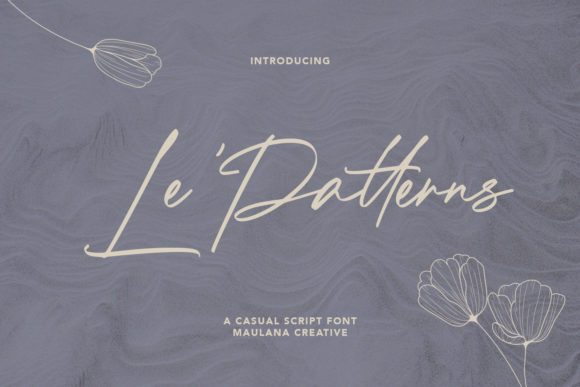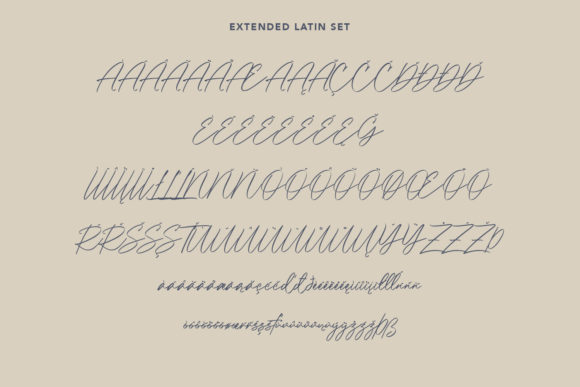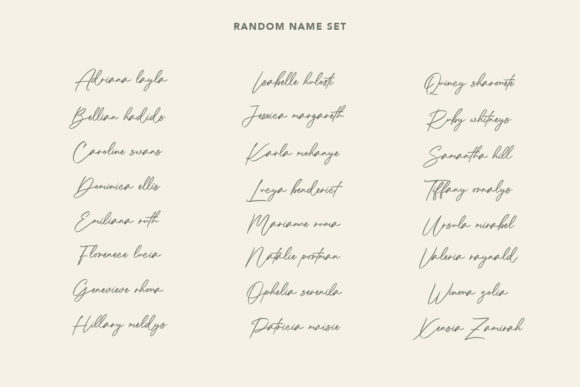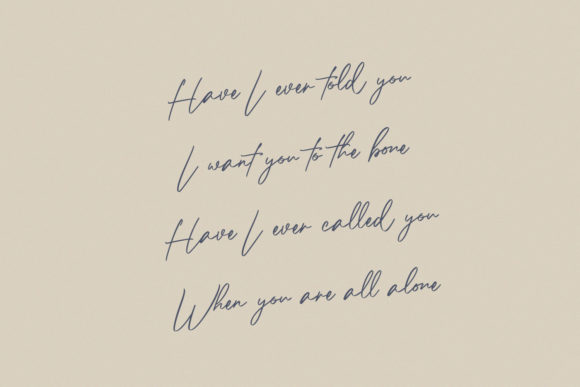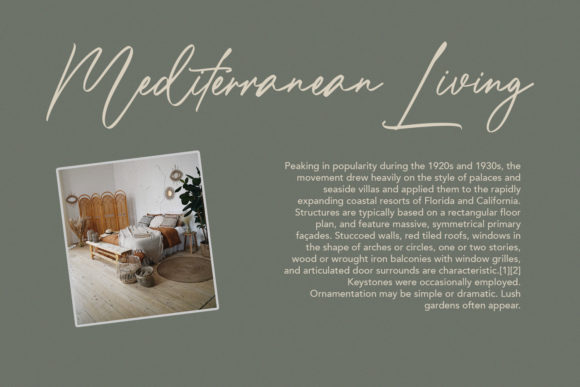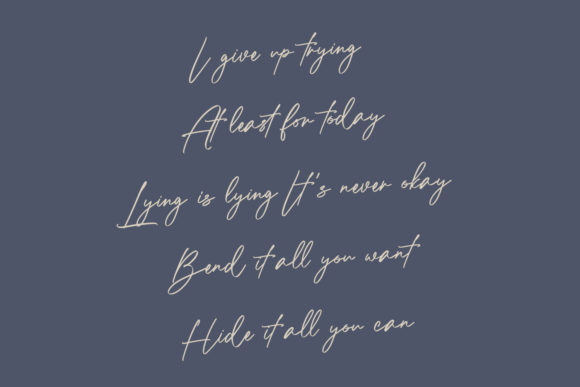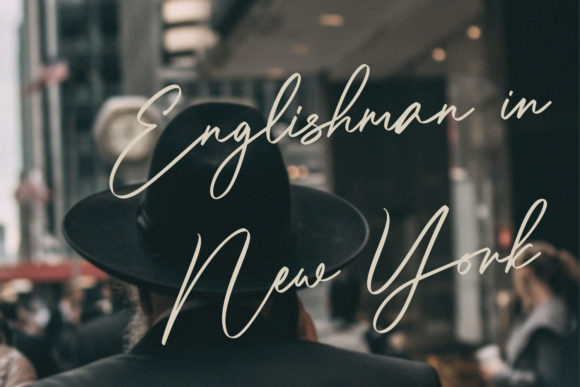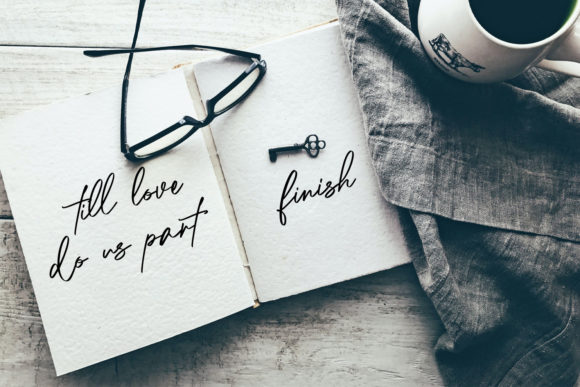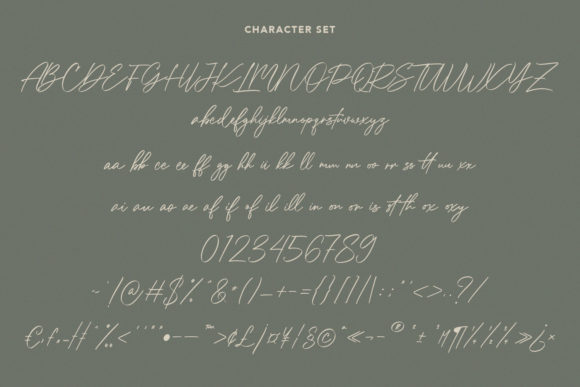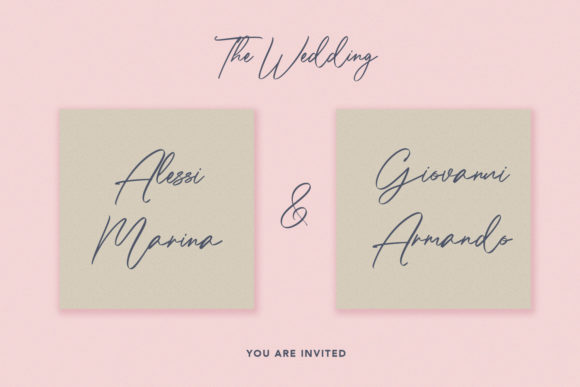
Le Patterns Font
About Le Patterns Font
Le Patterns is a stylish and distinct script font. It has a classy, elegant and modern look that can be used for logos, branding, invitations, stationery, wedding designs, social media posts, and much more!